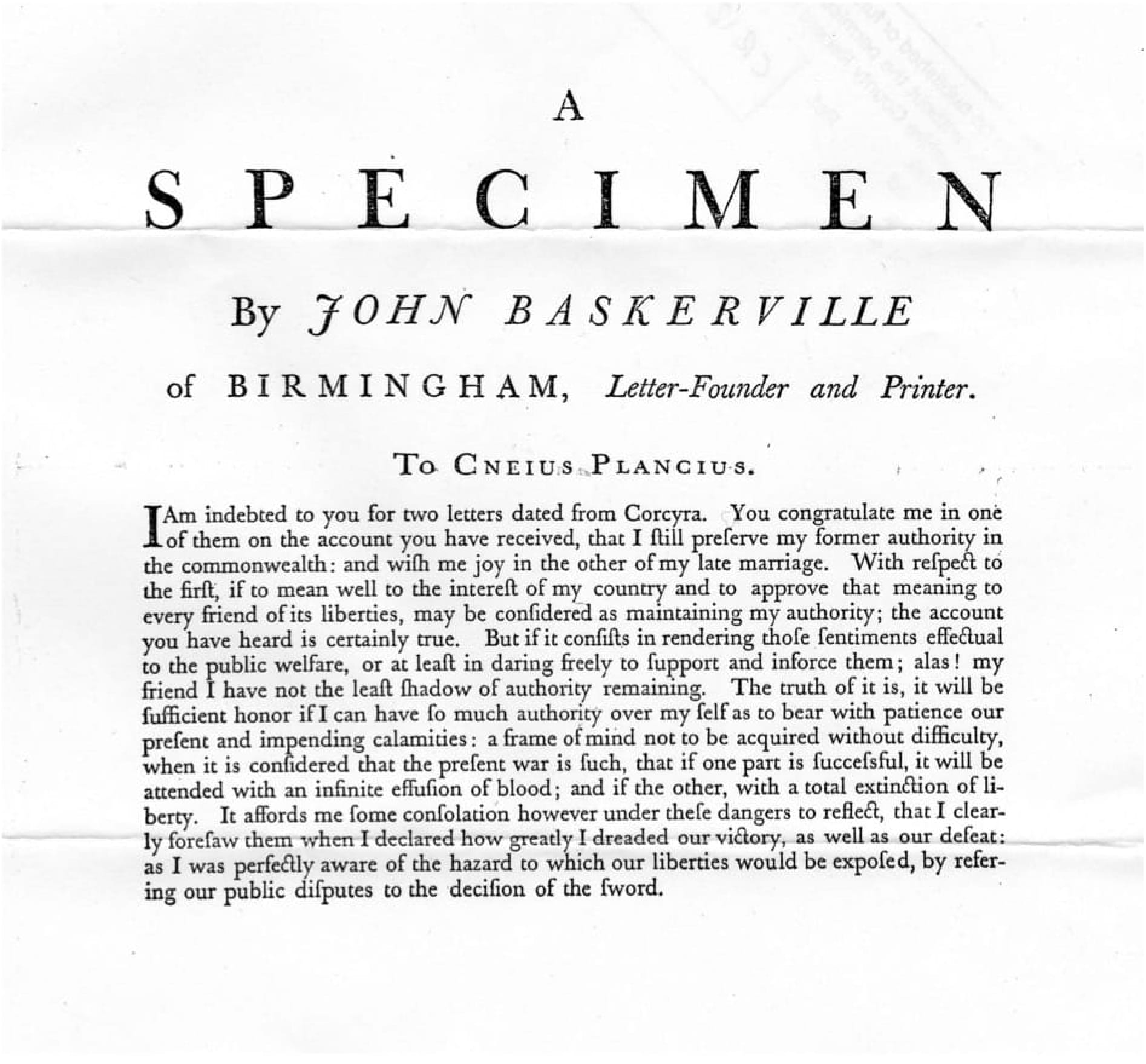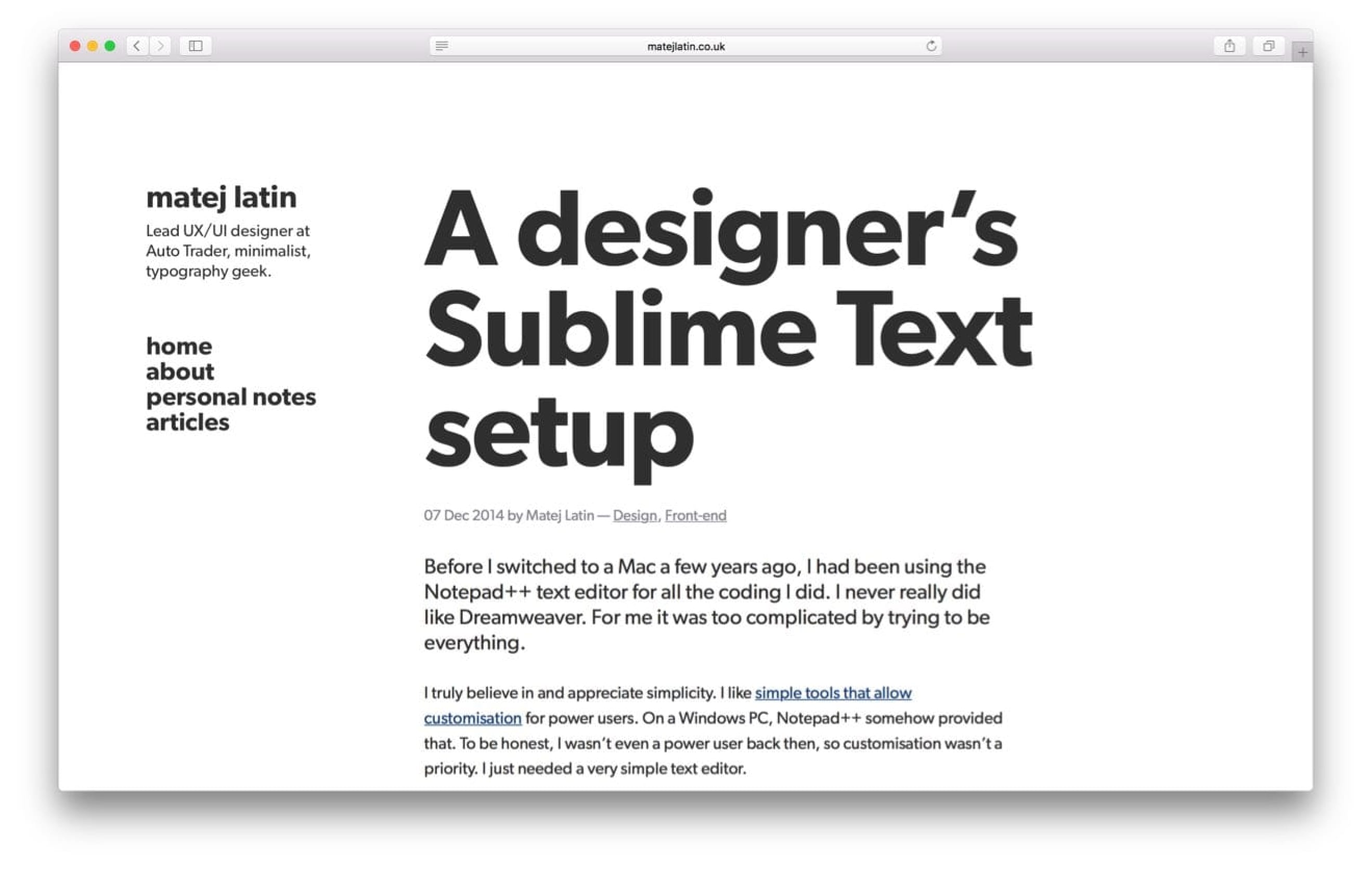
Combining fonts is one of the trickiest parts of typography. Here’s a guide, combined with an example to help you get font combinations right.
This guide is based on chapter 5 from the book Better Web Typography for a Better Web by Matej Latin. The book consists of 13 chapters through which the reader designs and builds an example website.
Do you really need more than one font?
Bad typography on the web in the early years of the internet was often blamed on the poor range of fonts available. But we already learned that typography is not merely about choosing fonts. One of its goals (probably the main one) is presenting information in a way that is readable and easy to consume. Before we start looking for a font to add to our design and combine it with our body text font, we need to ask ourselves: do we really need more than one font? Don’t just add one for the sake of it. There’s no rule in typography that says the more fonts used the better (the contrary is probably more true). There’s no guarantee that adding another font to your website will improve its typography. I like to keep my typography simple and solid. Like a machine—the fewer movable parts, the less likely it is to break down.
18th century typographic work in a single font—Baskerville—by John Baskerville himself.
It is a safe rule not to mix different styles of letters on the same page, or different faces of type in the same book.
—Eric Gill
Eric Gill, quite a controversial man but a great typographer (among many other things he did), had a similar opinion. There’s not much you can do better with more fonts than you can with a single one. Try to challenge yourself and create a website using one font only. If only for experiment and fun, I think everyone should try that as there’s lots to learn from it.
Recently redesigned matejlatin.co.uk. Typography-focused but using a single font only.
I recently redesigned my personal website. One of the things I wanted to stand out was the minimalism that is such a big part of my life. To best do that, I decided to use a single font. I also wanted the website to be typography-focused (literally 95% of it is typography) on top of that, which made the challenge even harder. I was looking for a clean, crisp and simple sans-serif font that would emphasise that even more. In the end I chose Gibson from Canada Type. It has a modern, but slightly friendly feel to it. And it works great when set to huge sizes. It was a bit of a challenge to get the typography right for that website, but I managed to do that just using different sizes, weights and only two colours—dark and medium grey.
I included that example in the book, because it’s great at showing how much can be done with a single font. Not only by typography masters like John Baskerville, but also by self-taught designers like me. Do you think you still need another font for your project? No worries, read on.
A four-step process for combining fonts
If you still think you need more than one font for your website, you’ll need a systematic process to guide you. The one I describe here is an adapted version of the one described in Tim Brown’s book Combining Typefaces. Here are the four steps:
1. Find an anchor font for your main body text
2. Find a few secondary fonts for possible combinations
3. Evaluate the combination
4. Eliminate/choose fonts combination.
The process above assumes you’re starting out with the font for body text already selected. The process can easily be reversed if you want to start with a title font first.
There are two approaches to combining fonts and five guidelines that can help you with step 3 from the chart above. Let’s take a look.
Two approaches to evaluating font combinations
Contrast and harmony are the two most basic principles when it comes to design, architecture and art. Both are crucial when it comes to typography as well. Some evaluations described in this process will only work as a contrasting combination, some only as a harmonic one and some as both. Let’s take a look at a real-life example.
Contrasting combinations
Take a look at the photo of the office above. How would you describe it? It feels modern, right? But there’s something else. It feels warm, too. Unusual for offices with modern, almost futuristic furniture. Yet, this one does. The brick wall brings this feeling of warmth and cosiness to a room that would look cold without it. The same can be applied to combining fonts.
How can we apply this to typography? Let’s take the Baskerville font for our main body text. Baskerville was designed by John Baskerville in 1754. It was a modern font at the time as it was pushing the boundaries of what was possible in typography. It’s perceived as a classic these days though. It evokes feelings of trust and warmth. Based on an experiment, conducted by Errol Morris, it’s the most trusted font around. Now let’s complement it with an uppercase-only Futura for headings. Futura was designed by Paul Renner in 1927. It’s a geometric sans-serif font. It was a modern geometric sans-serif font when it was first designed and it still feels modern to this day.
Our design looks rich. Luxurious. It has a story to tell. But most importantly—it works. It uses two font classics from different time periods. Each comes from the opposite of the scale between modern/cold and classic/warm. Together, they’re like fire and ice that turn into flowing water.